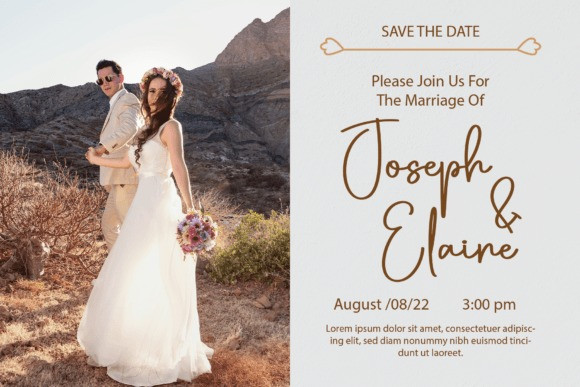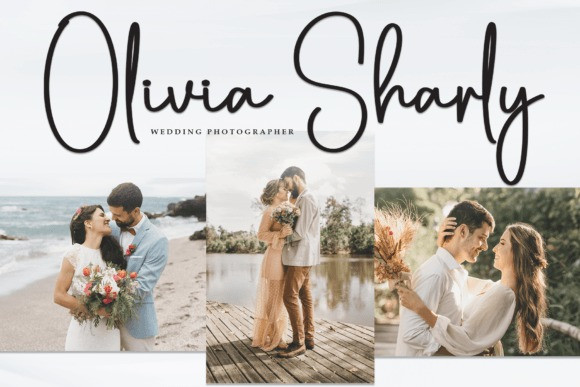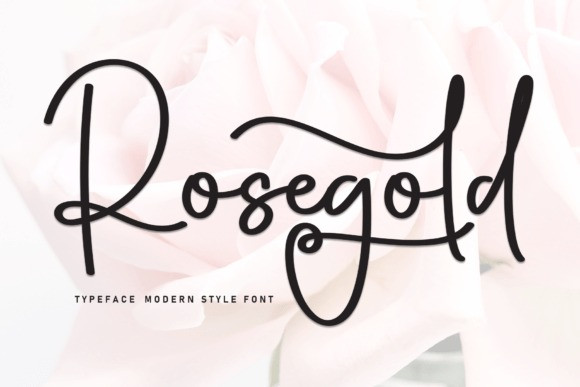
Rosegold Script Font
Rosegold Script Font is a sweet and friendly handwritten font. Its natural and unique style makes it incredibly fitting to a large pool of designs. The only limit is your imagination!